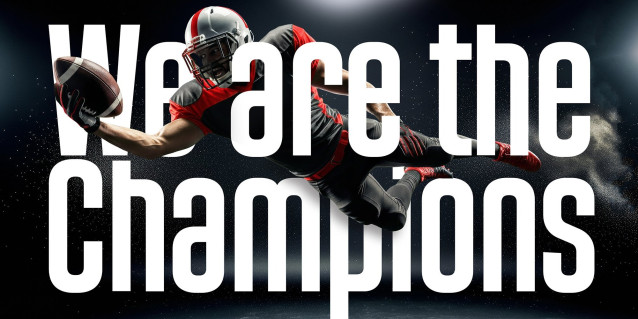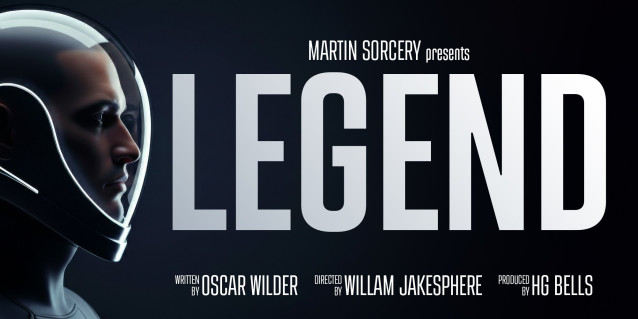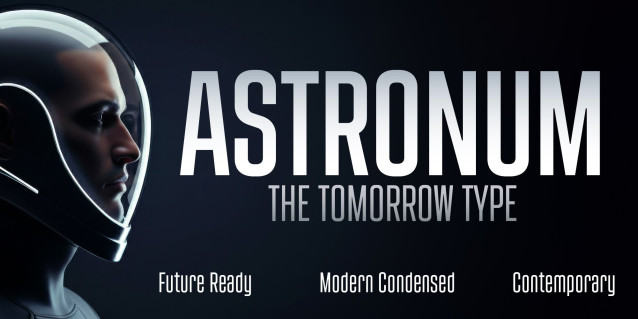
Astronum Font
Astronum Font is a modern, futuristic sans-serif typeface designed for clarity, impact, and versatility. Featuring tall proportions, clean geometry, and smooth curves, Astronum balances a sleek technological feel with excellent readability. Its streamlined letterforms and minimal detailing make it ideal for branding, editorial headlines, user interfaces, posters, and contemporary advertising. Balancing strength with sophistication, Astronum transitions effortlessly from dynamic sports branding to high-end technology campaigns, from bold posters to refined minimalist packaging. Available in multiple weights, Astronum adapts seamlessly from bold statements to refined, lightweight compositions, perfect for forward-looking design projects.